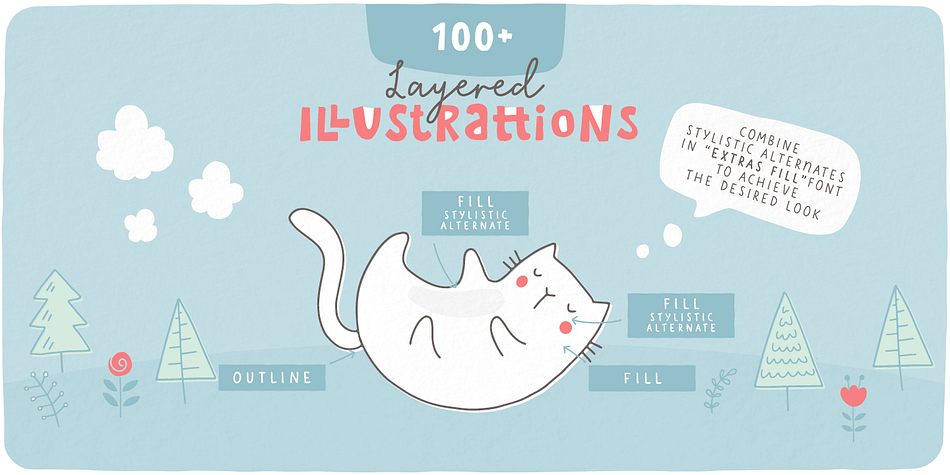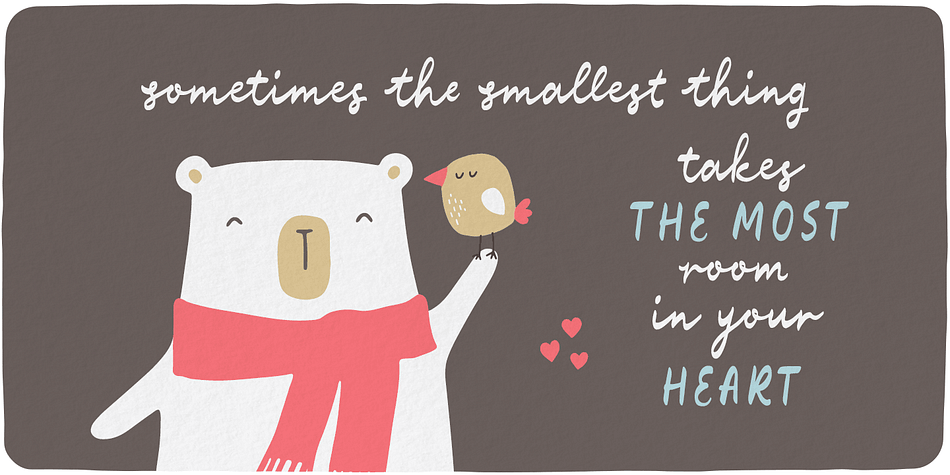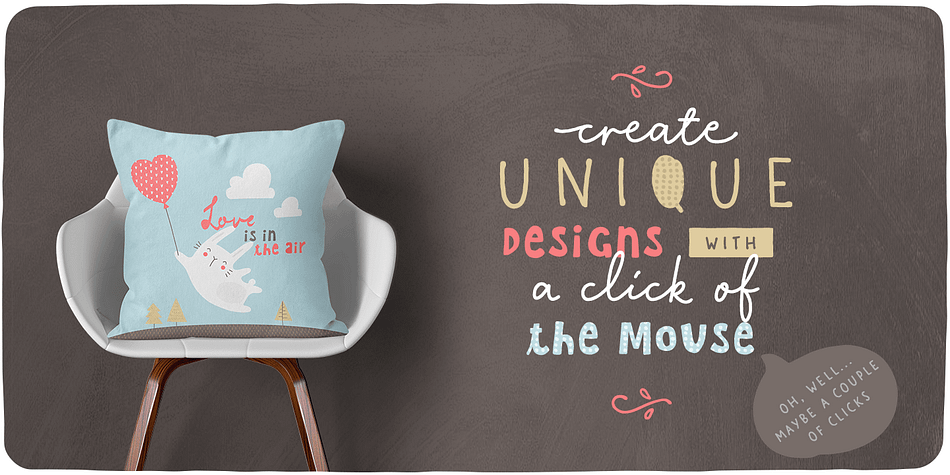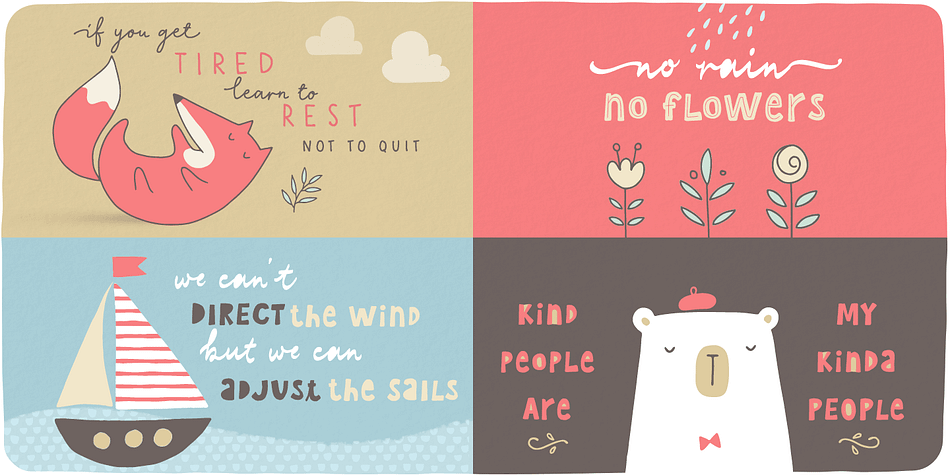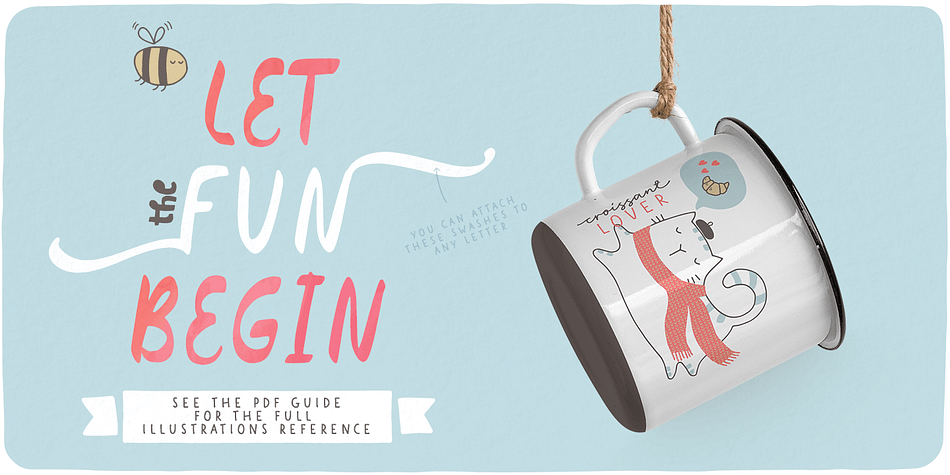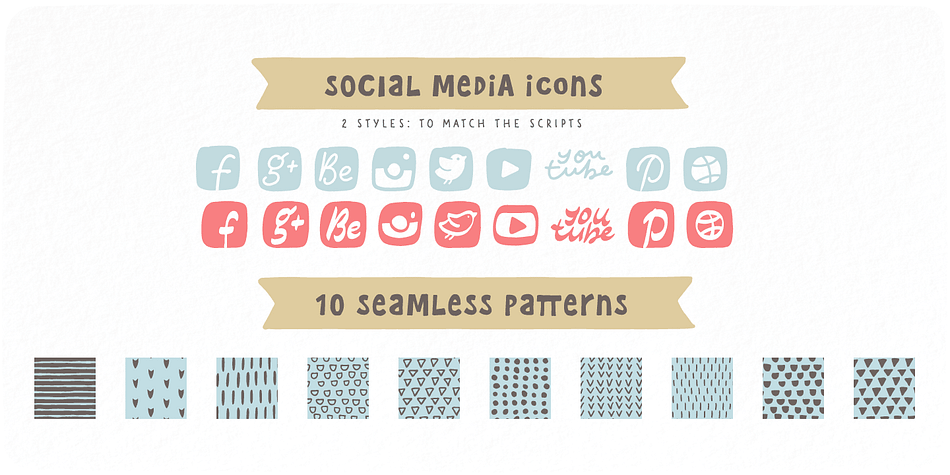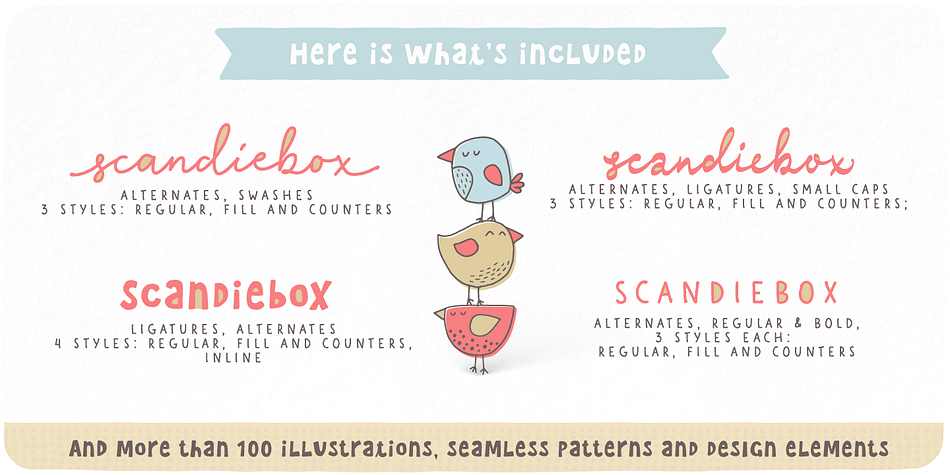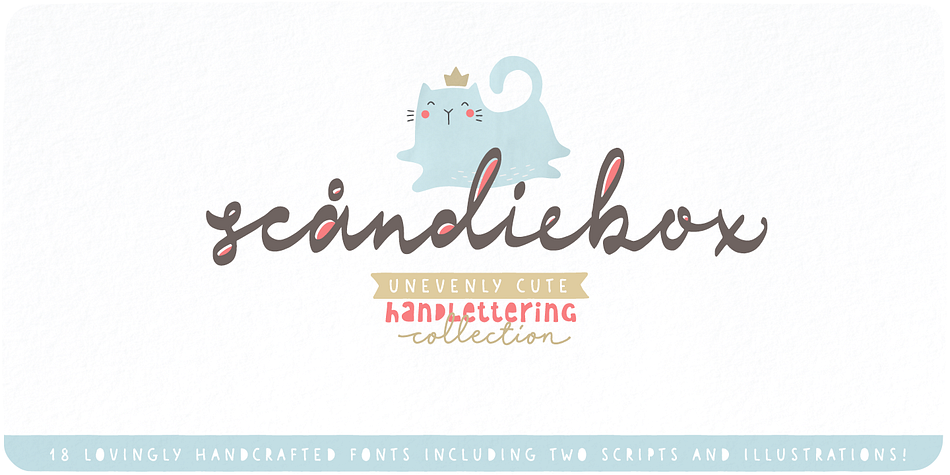
Designed by Elena Genova, Scandiebox is a dingbat and hand drawn font family. This typeface has eighteen styles and was published by My Creative Land.
It’s time to have some fun!
The new Scandiebox Handlettering Collection was inspired by the simplicity of the modern Scandinavian style and also has some influence of Japanese kawaii. All handwritten fonts in this collection perfectly compliment each other as well as the set of more than 100 illustrations created in the same happy style. You can find a manual for Scandiebox Extras here http://bit.ly/2toV1zB.
The collection’s childish look-and-feel makes it perfect for all sorts of designs for children - books, cards, invitations, packaging, apparel, children shop ads, etc.
If you are an Adobe Suite user, you’ll find that working with illustrations is extremely easy - just select a stylistic alternate you want in either drop down list or using the glyphs panel.